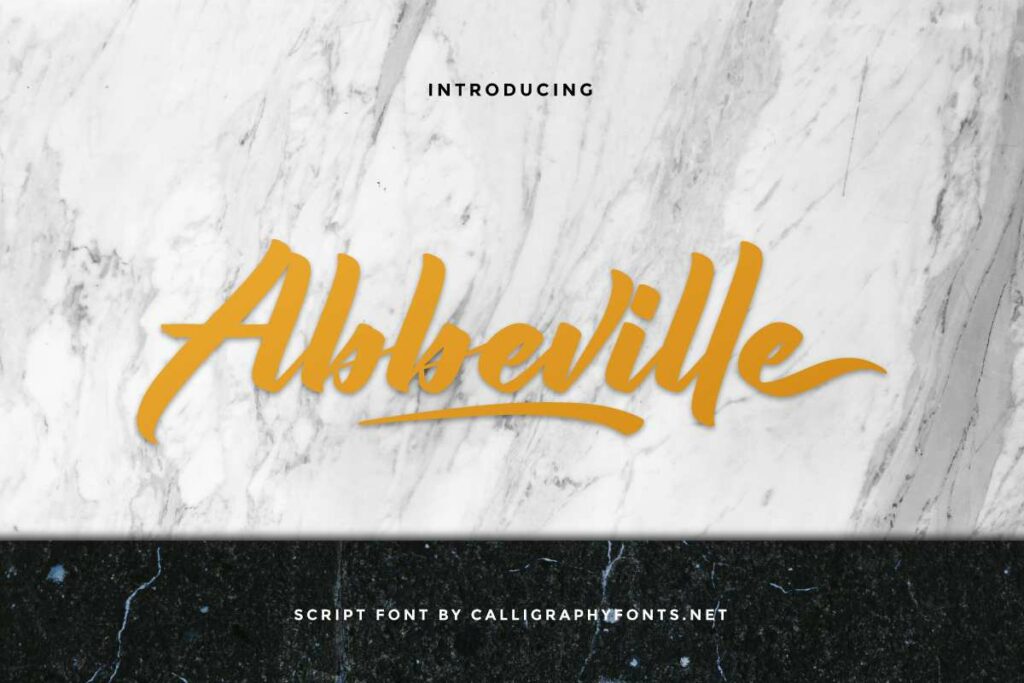
Abbeville Font
Abbeville Font is a stylish handwritten calligraphy font. It has unique a flawless looks that are modern, elegant, luxurious, professional and sophisticated style. With commercial license, you can use it for logo, brandings, flyer, poster, product packaging and all designs needs. Here’s what you’ll get on the package.
Abbeville Calligraphy Font